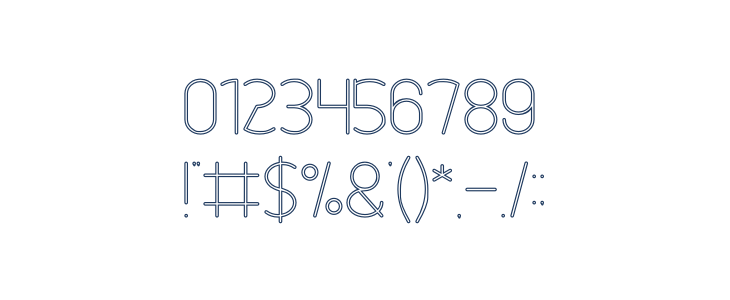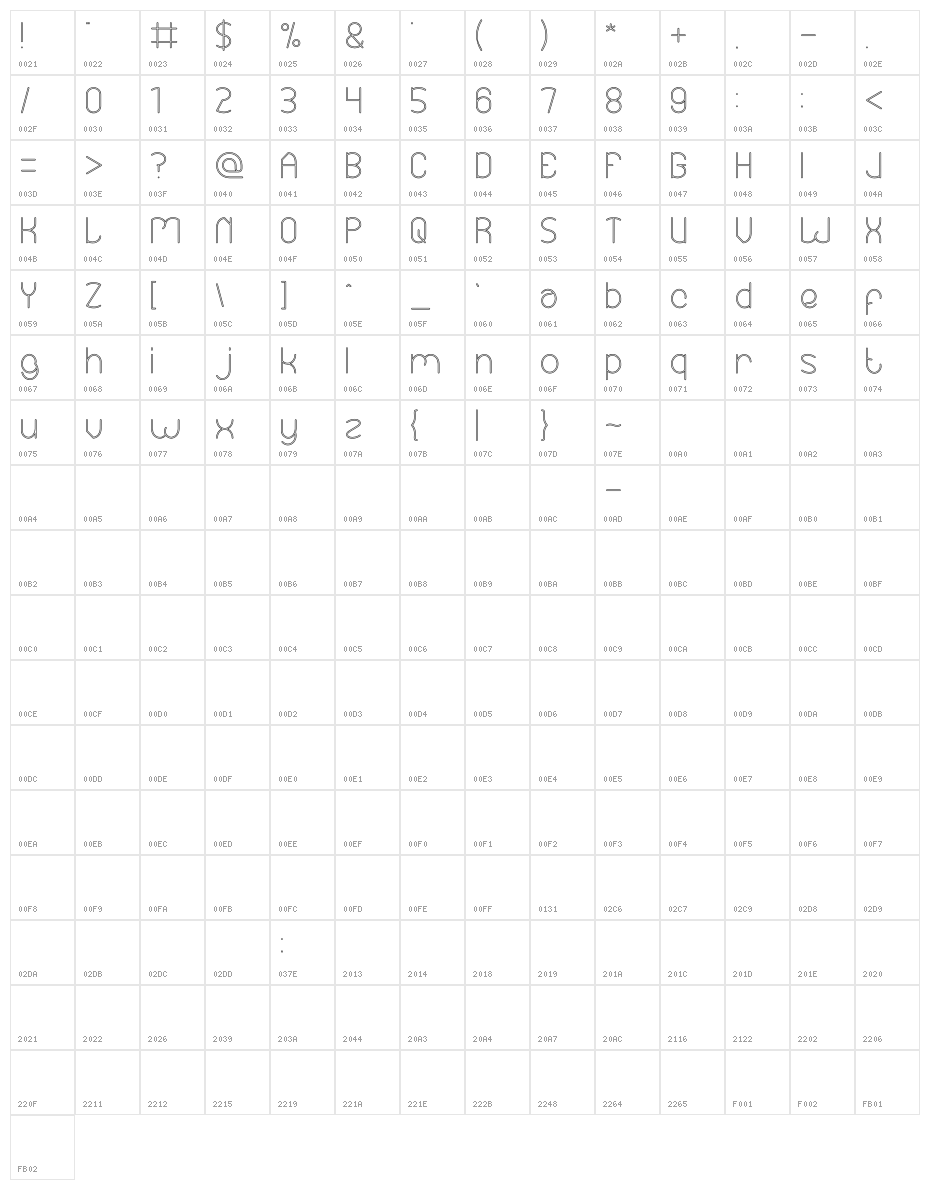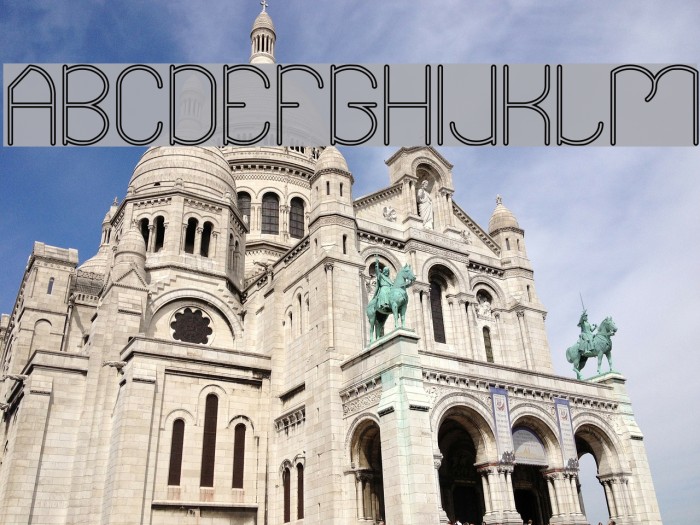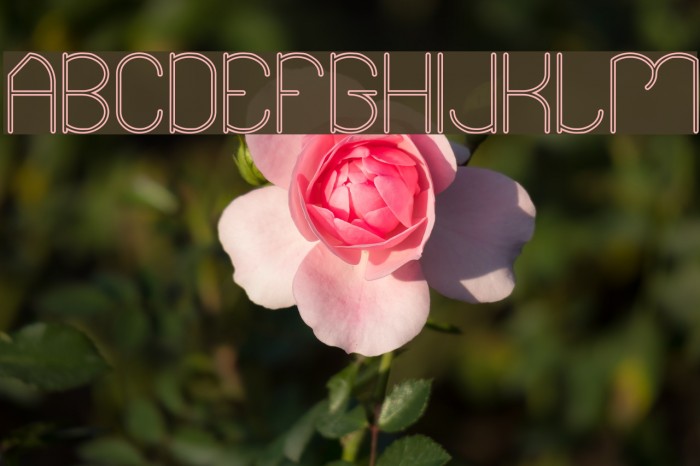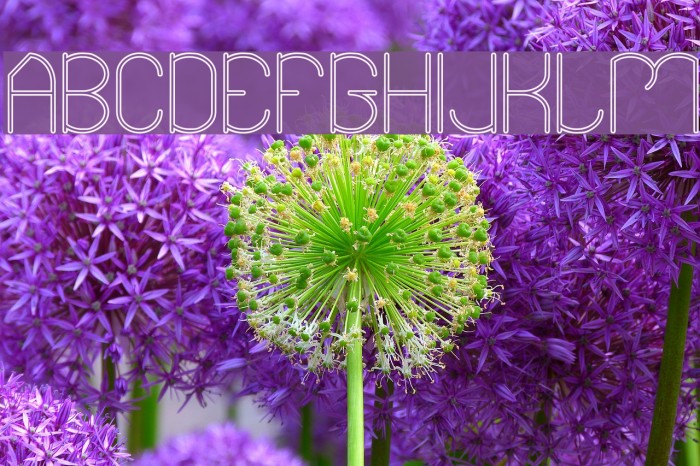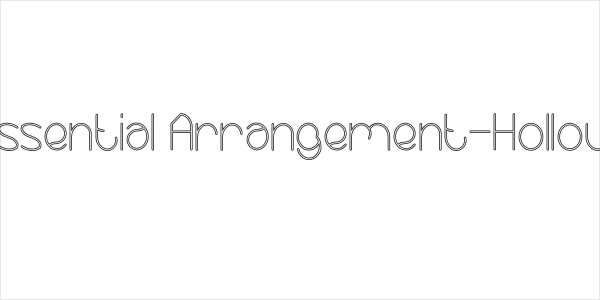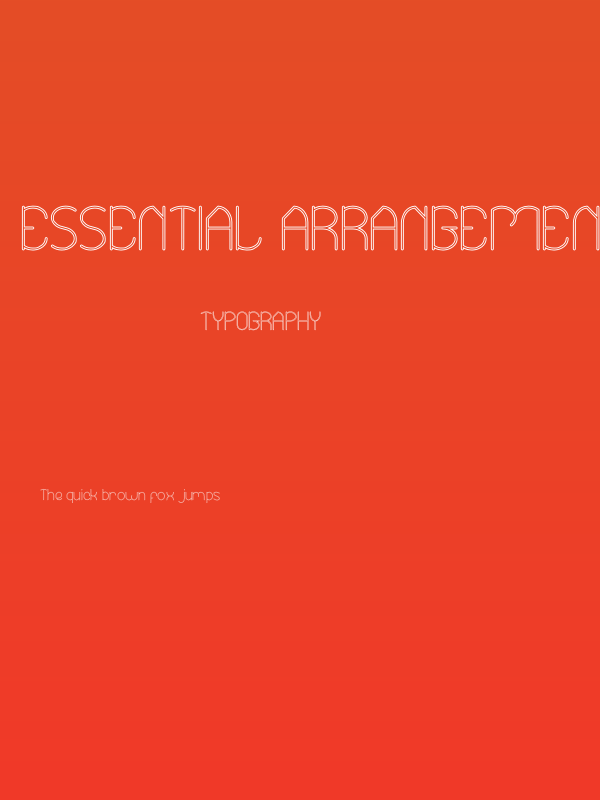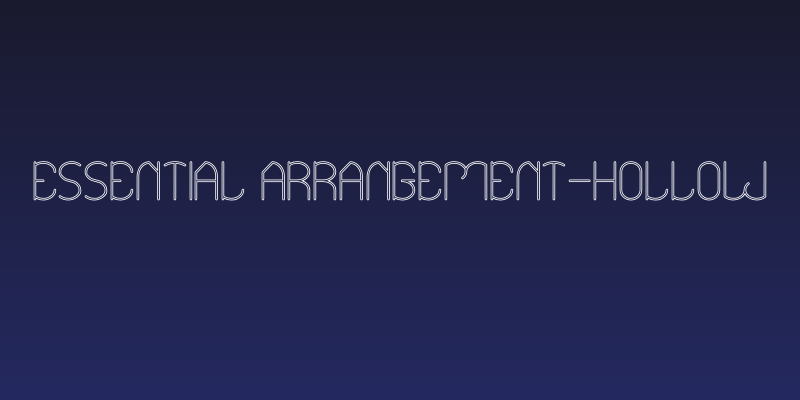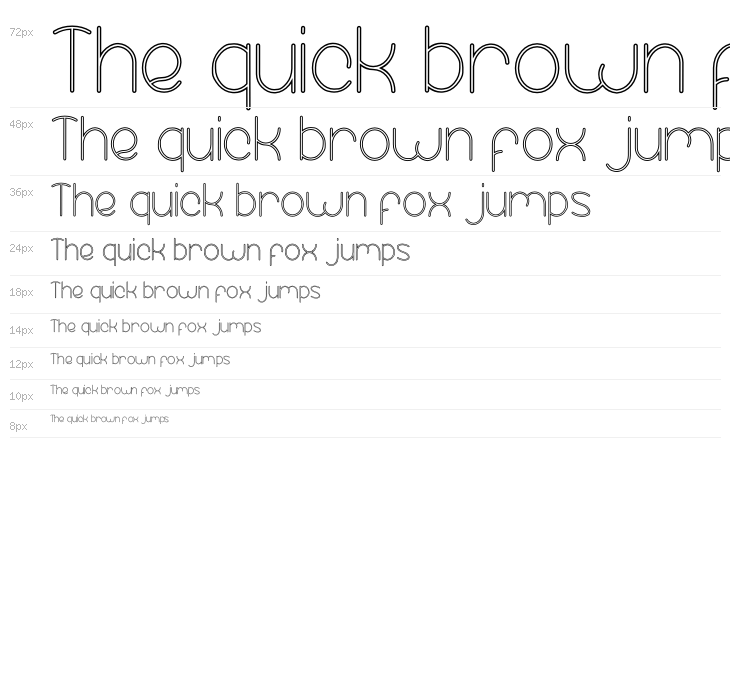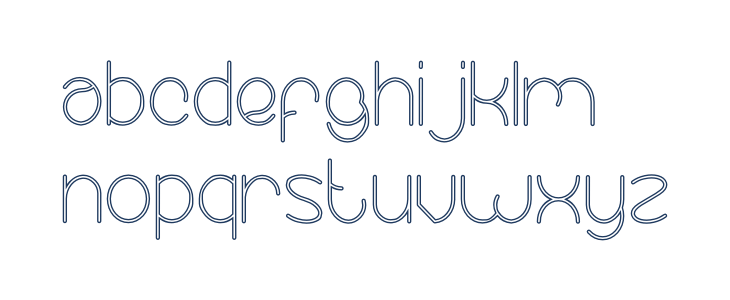
Essential Arrangement-Hollow Font
Essential Arrangement-Hollow Description
This font features a unique hollow design with a modern and geometric aesthetic. Each character is outlined with a consistent stroke width, creating a clean and open appearance. The uppercase and lowercase letters maintain a uniform height and width, contributing to a balanced and harmonious look. The numerals and special characters are designed to match the overall style, ensuring a cohesive visual experience. The font's structure is minimalistic yet distinctive, making it suitable for creative and contemporary projects.
| Proposed Projects | Ideal for branding, posters, headlines, and digital media where a modern and creative touch is desired. |